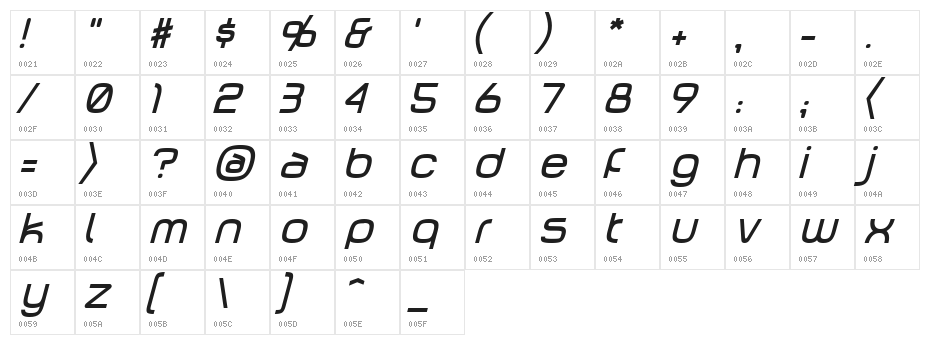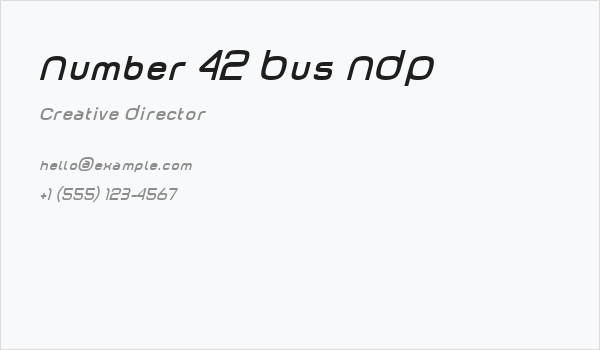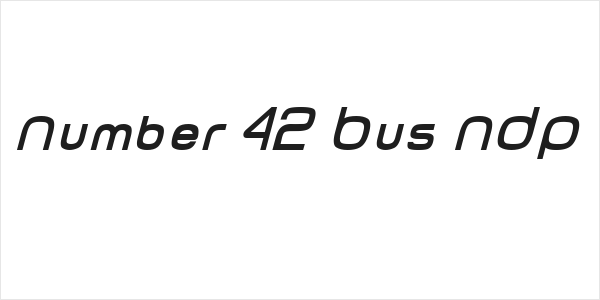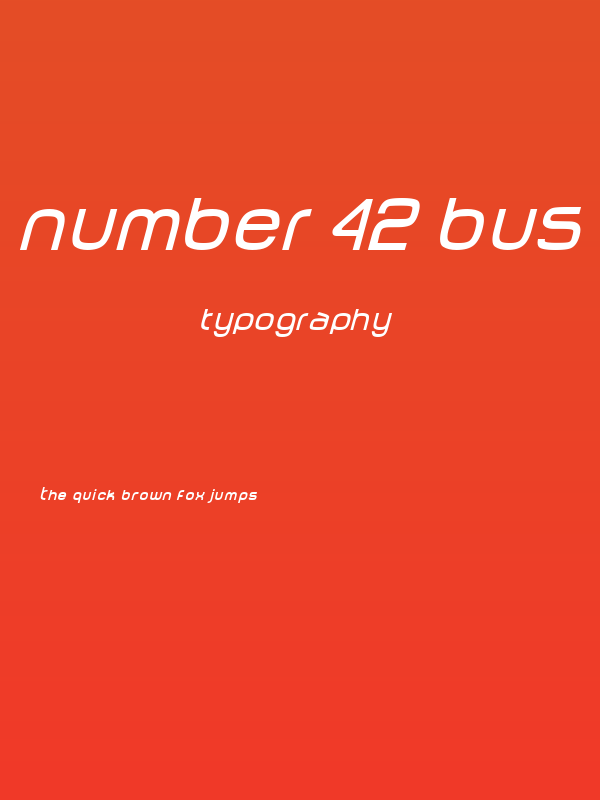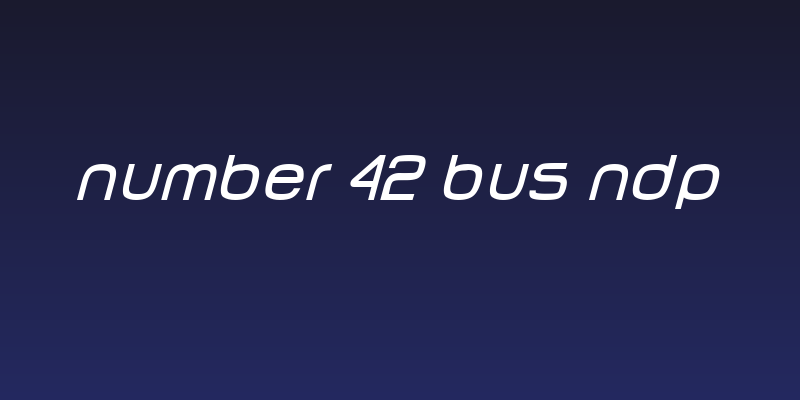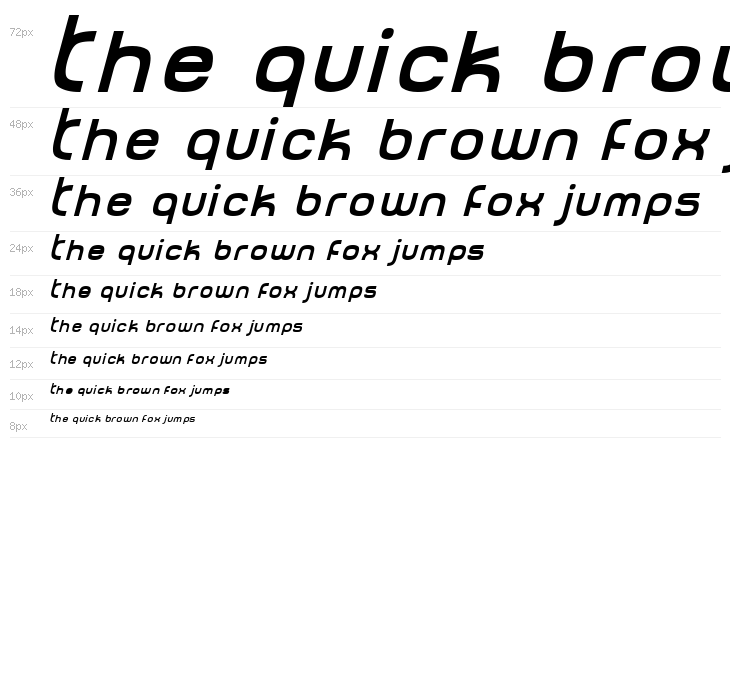
Number 42 Bus NDP Font
Number 42 Bus NDP Description
This font features a modern and sleek design with a slightly italicized style, giving it a dynamic and forward-moving appearance. The characters are rounded with smooth curves, providing a friendly and approachable feel. The numerals and special characters maintain the same aesthetic, ensuring consistency across all text elements. The overall design is clean and minimalistic, making it suitable for contemporary applications. The spacing between characters is balanced, allowing for easy readability while maintaining a compact look.
| Use Case | Headlines, Logos, Digital interfaces |
| Proposed Projects | Ideal for tech branding, modern advertising, and digital interfaces. |